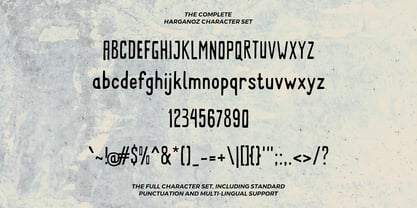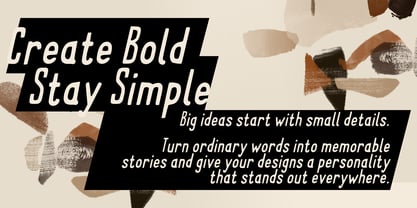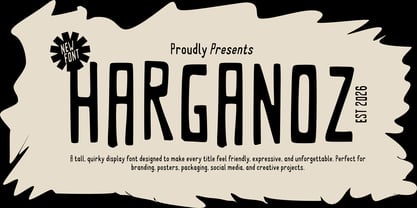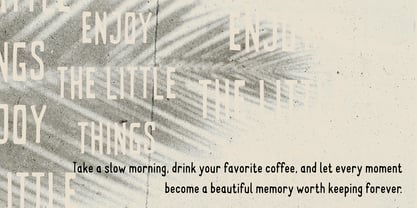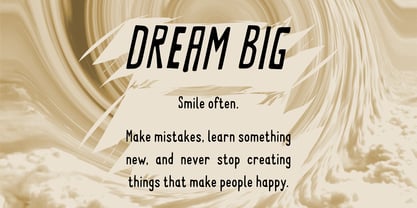
Harganoz
by Mei Suseno
The Harganoz Font Family was designed by Wahyu Eka Prasetya, Mei Suseno and published by Mei Suseno. Harganoz contains 2 styles and family package options. More about this family
HARGANOZ is a playful and handcrafted display font that combines tall letterforms with a quirky personality. Designed to create a strong visual impact, this font brings a friendly, modern, and artistic feel to any project. Its unique hand-drawn appearance makes it perfect for branding, posters, packaging, social media content, book covers, children's products, café menus, and creative merchandise. HARGANOZ adds warmth, charm, and character while keeping your designs clean, memorable, and easy to recognize.
Designers: Wahyu Eka Prasetya, Mei Suseno
Foundry: Mei Suseno
Mei Suseno is an independent type foundry focused on creating distinctive, high-quality typefaces for modern branding, editorial design, digital products, and visual communication. The foundry combines contemporary aesthetics with careful craftsmanship to develop fonts that are both functional and expressive. With an emphasis on originality, versatility, and strong visual identity, Meisuseno aims to support designers, creative studios, and brands in building memorable and effective design experiences across print and digital media.